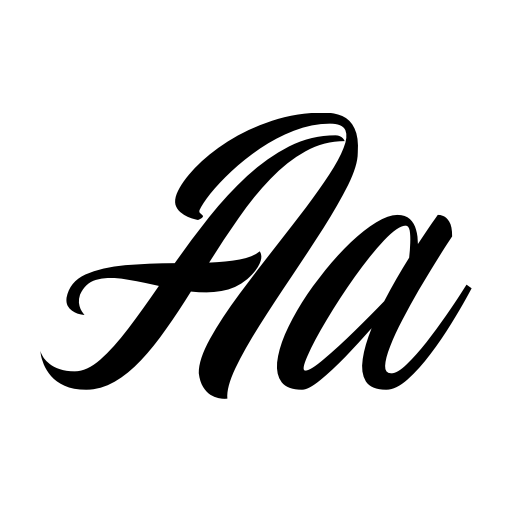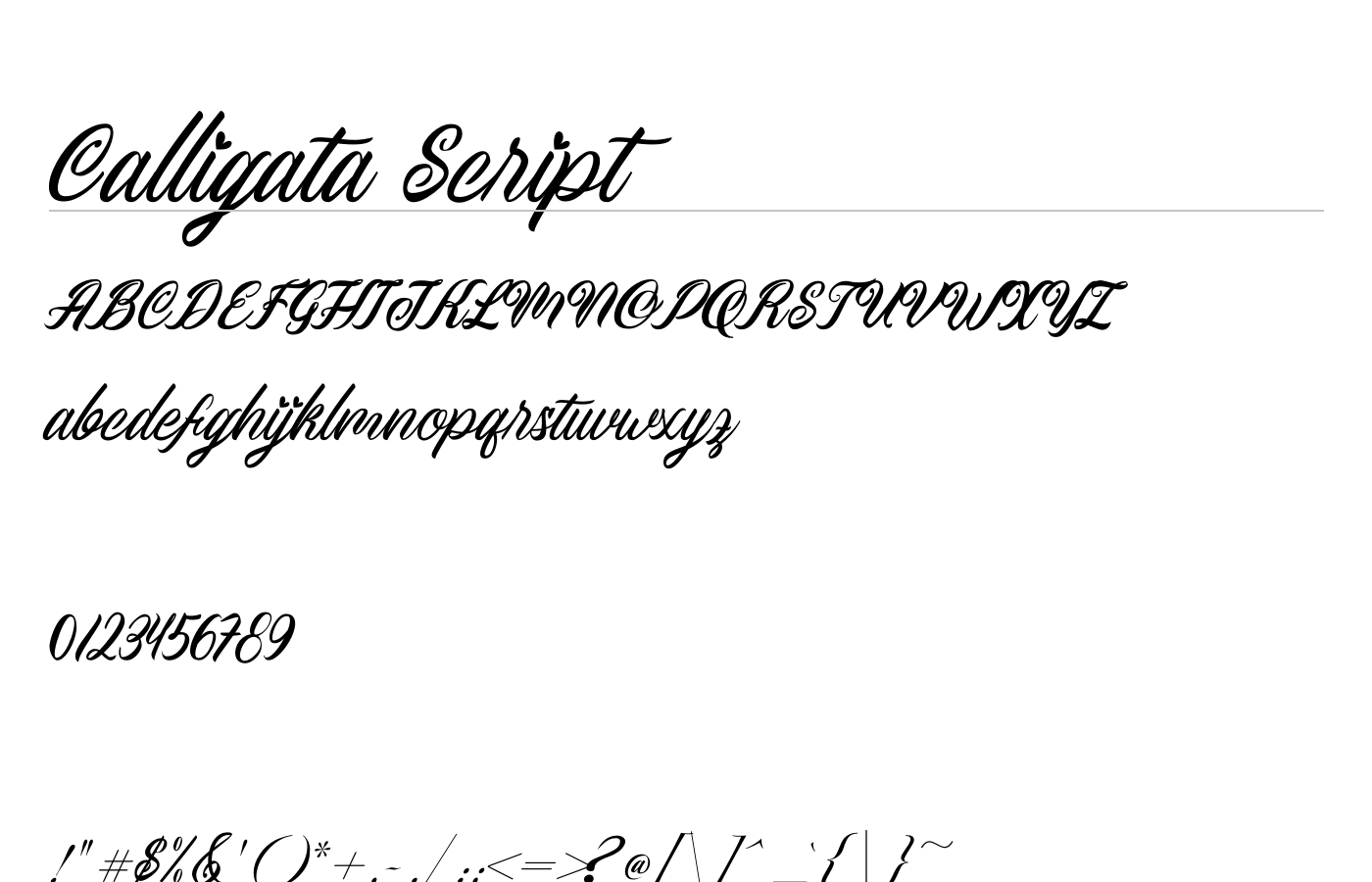
Calligata Script is an elegant, flowing script font with smooth, connected letterforms that evoke a refined, handwritten feel. Its medium weight and moderate contrast give it a graceful yet readable style, making it ideal for sophisticated branding, invitations, and stylish editorial designs. This font’s charm lies in its delicate curves and consistent slant, perfectly suited for adding a personal, luxurious touch to creative projects.
Calligata Script Font
About Calligata Script Font